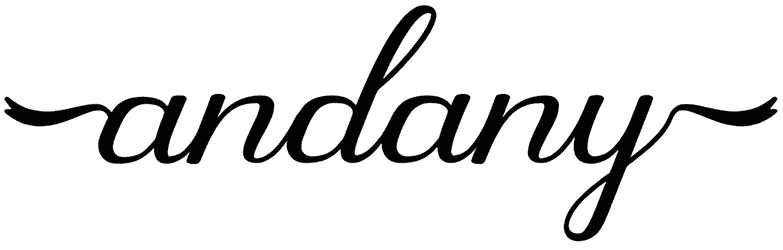
Andany Font
There are kinds of ways to give your content a unique personality, and the easiest way is to try a calligraphy font like Andany. This font is the perfect example of what you can expect from this category. It doesn’t matter whether your project is a simple poster and flyer or branding a perfume and fashion magazine cover.